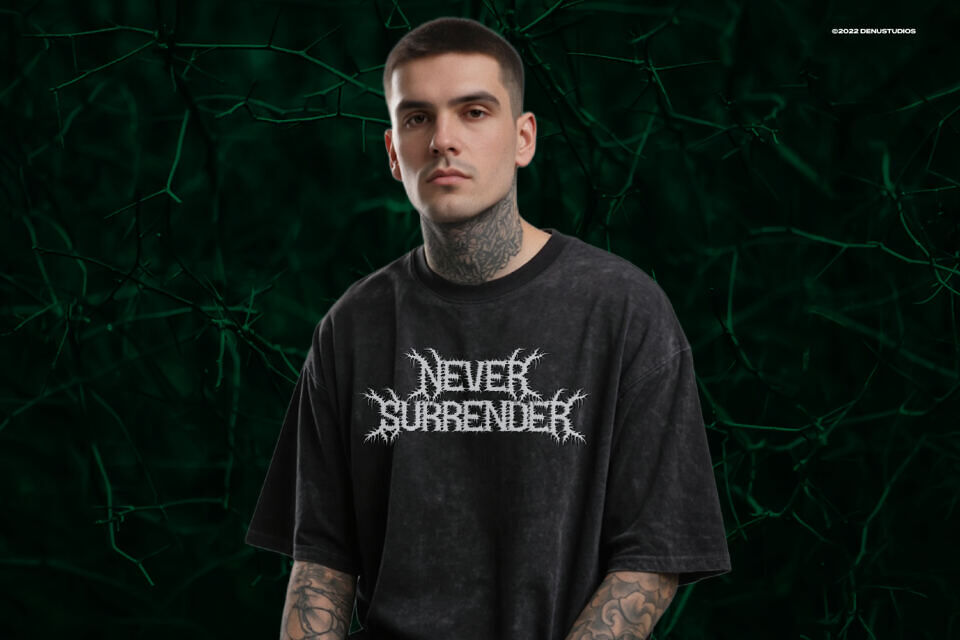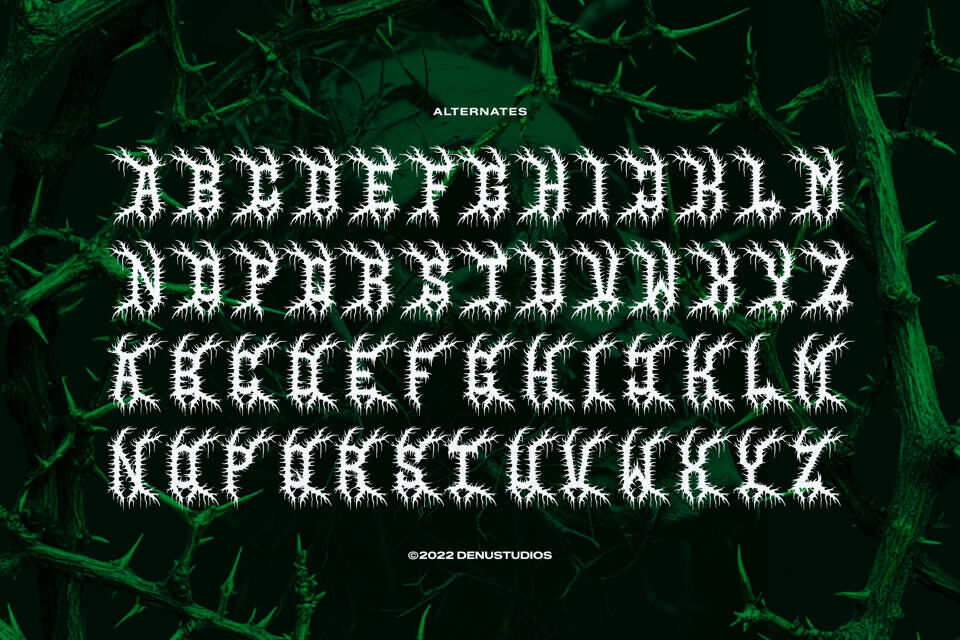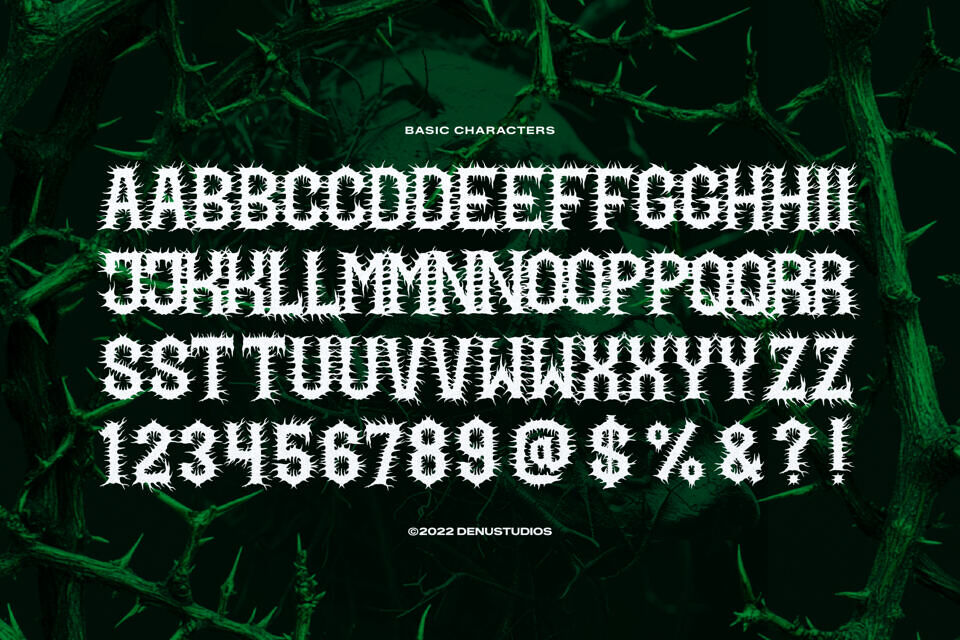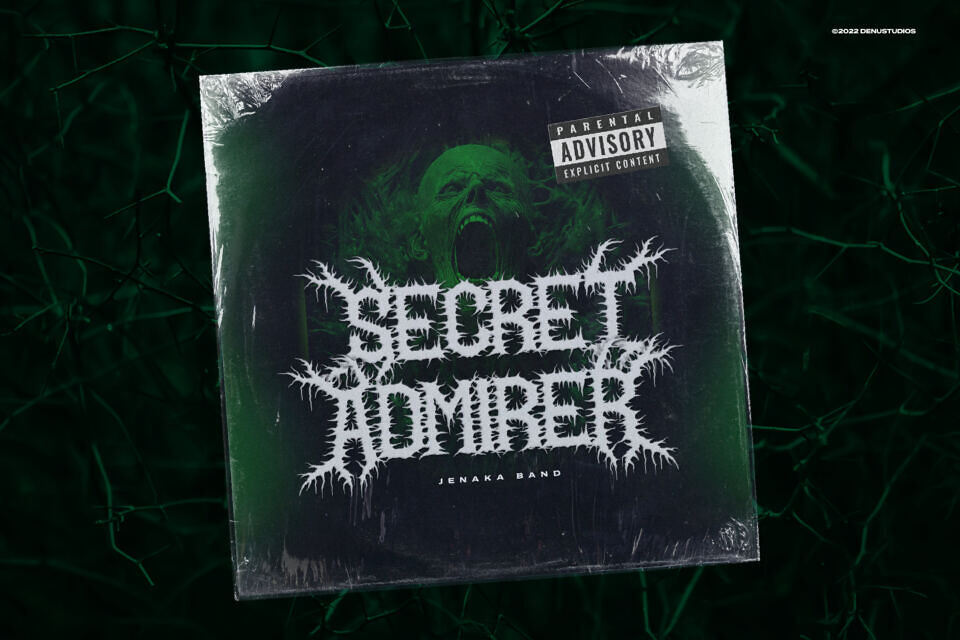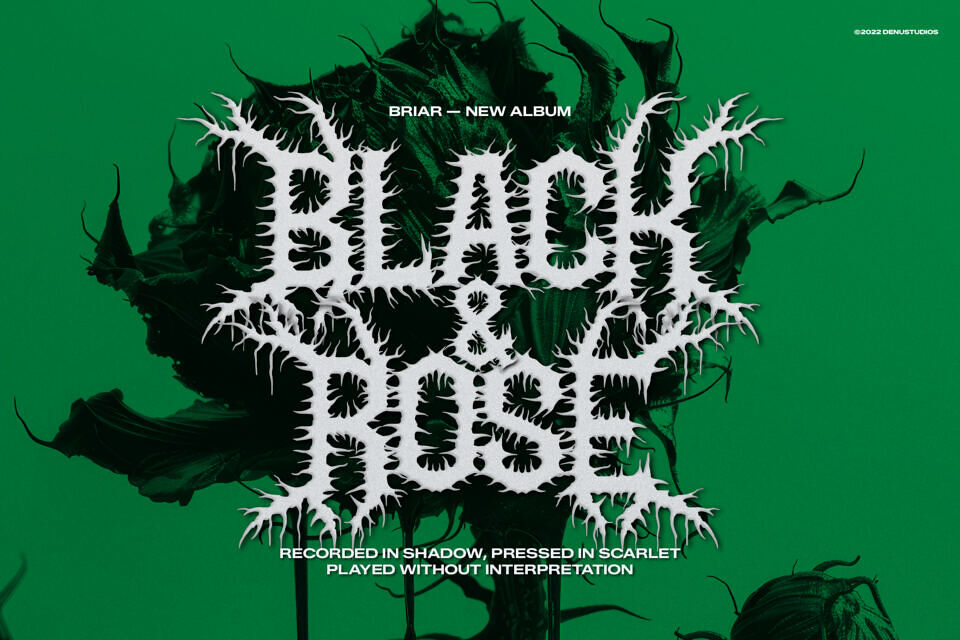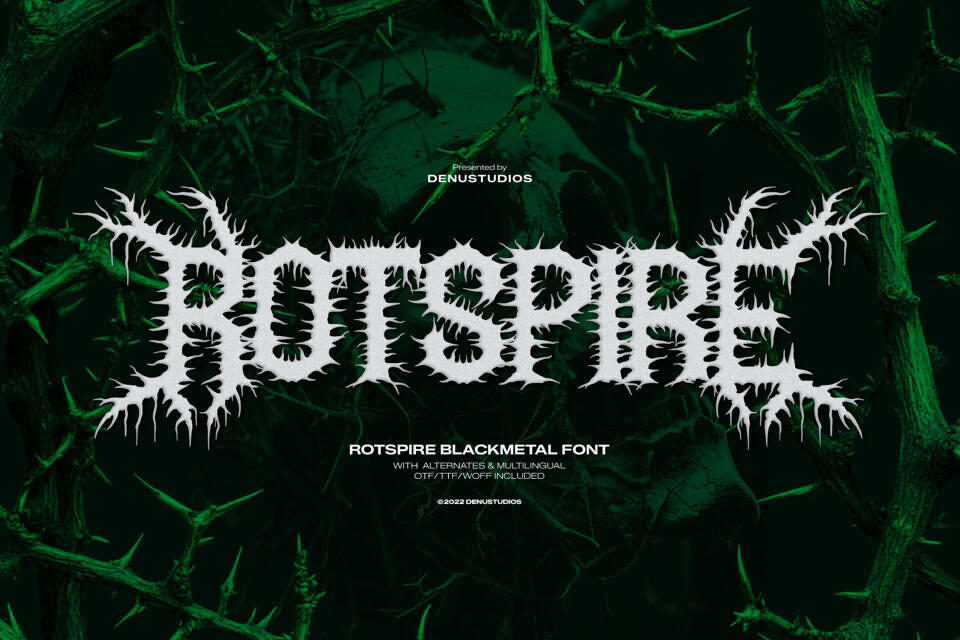
Rotspire Font
Embody the darkness with Rotspire, a bold, intricate font inspired by black metal and underground culture. Its sharp, thorn-like design and chaotic symmetry create a visually intense statement of rebellion.
Ideal for band logos, extreme sports, and horror themes, this font thrives as a focal point with added textures or dark illustrations. Its decorative yet recognizable design makes it perfect for streetwear, gothic events, and gaming titles that demand a sharp, daring look.